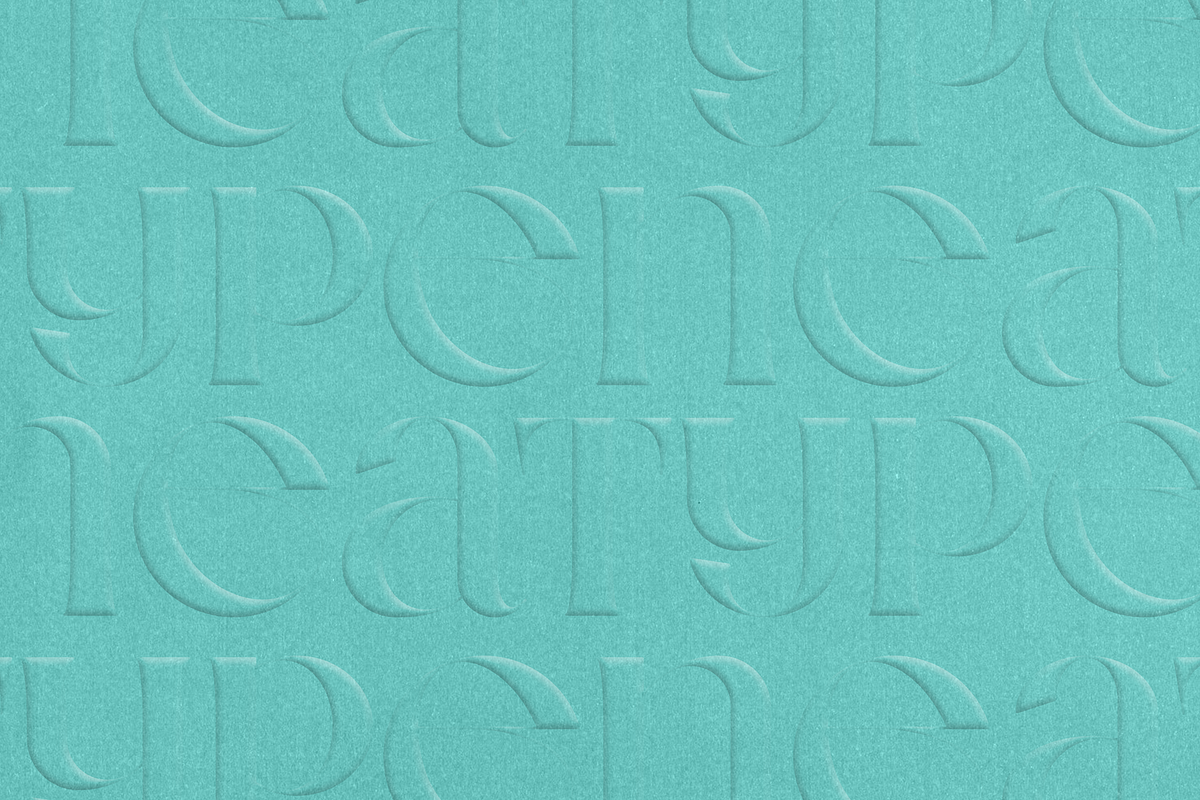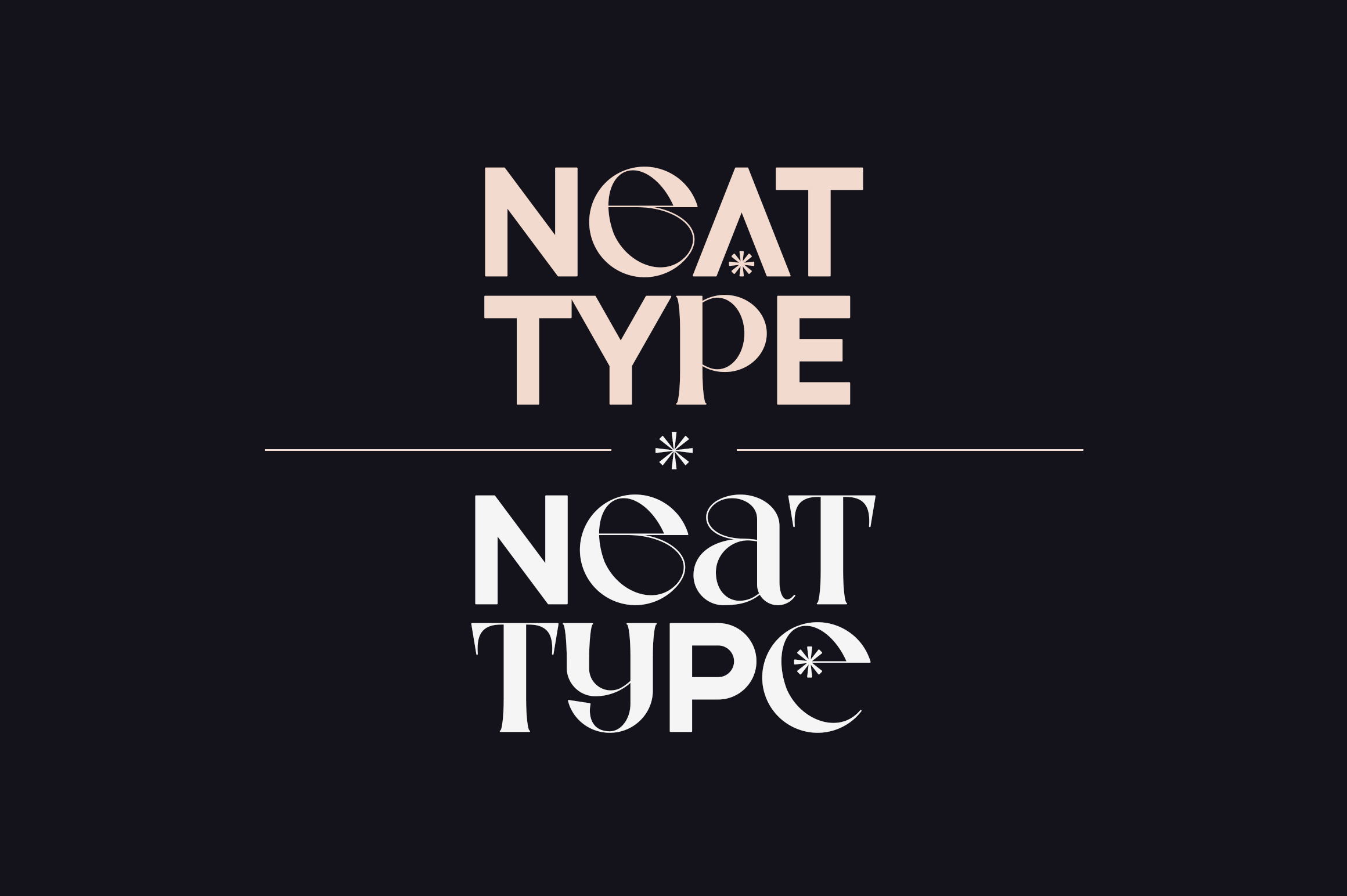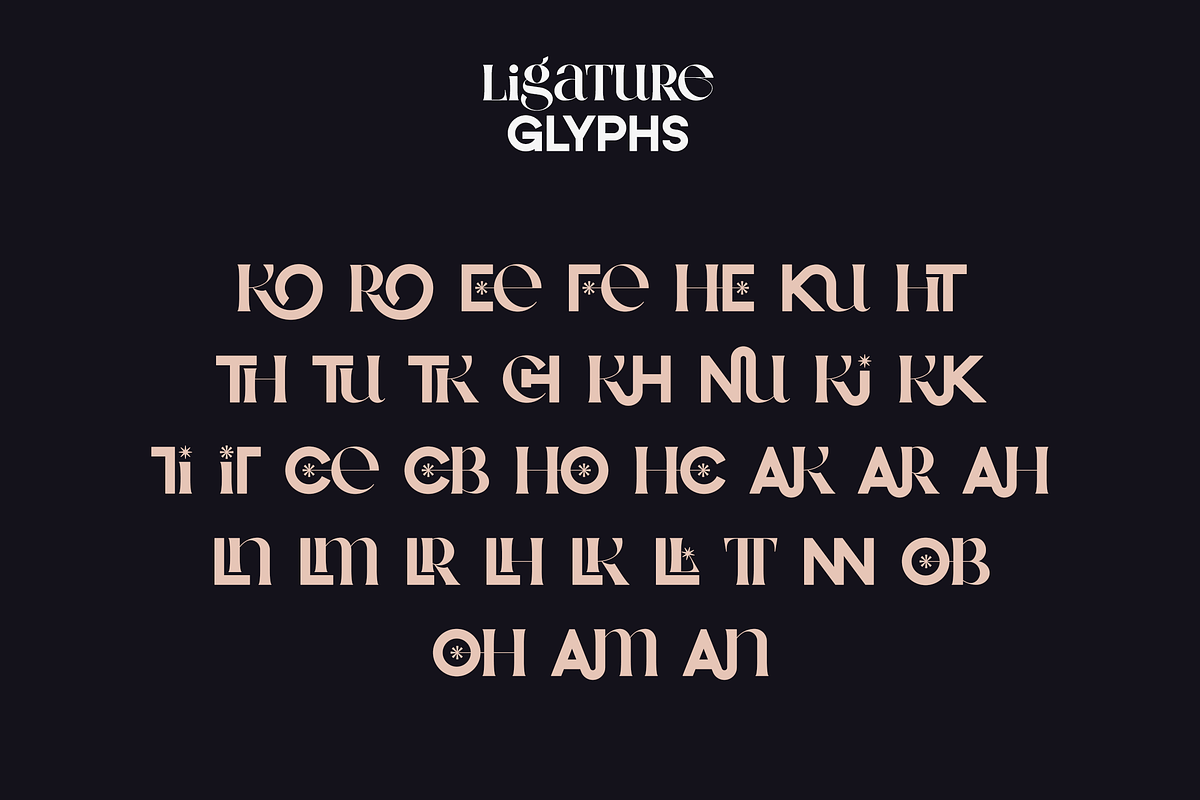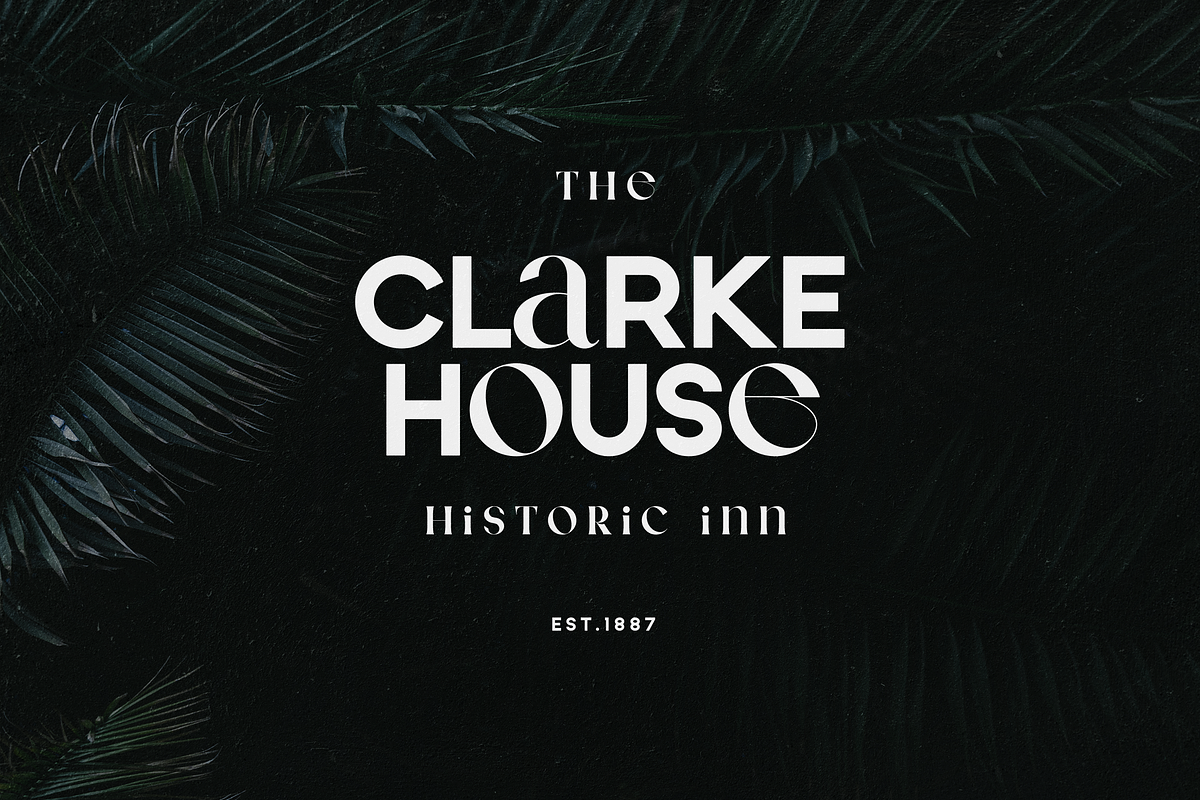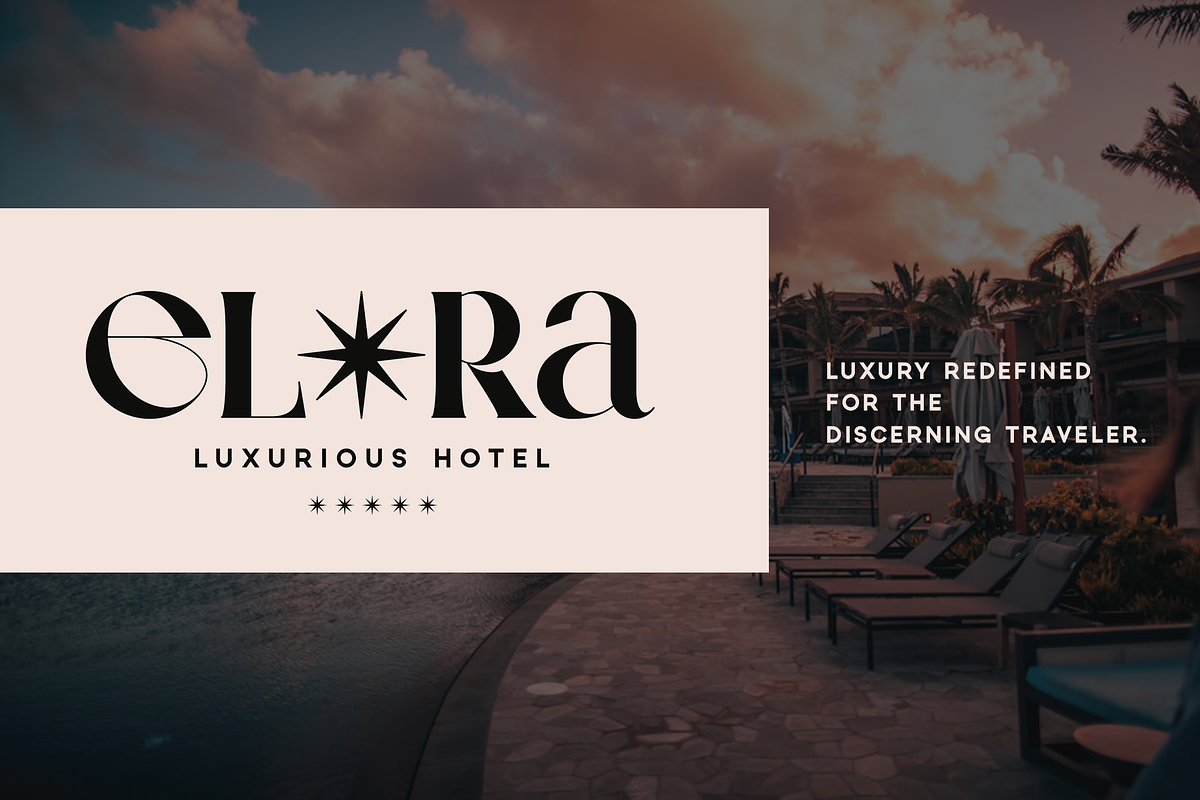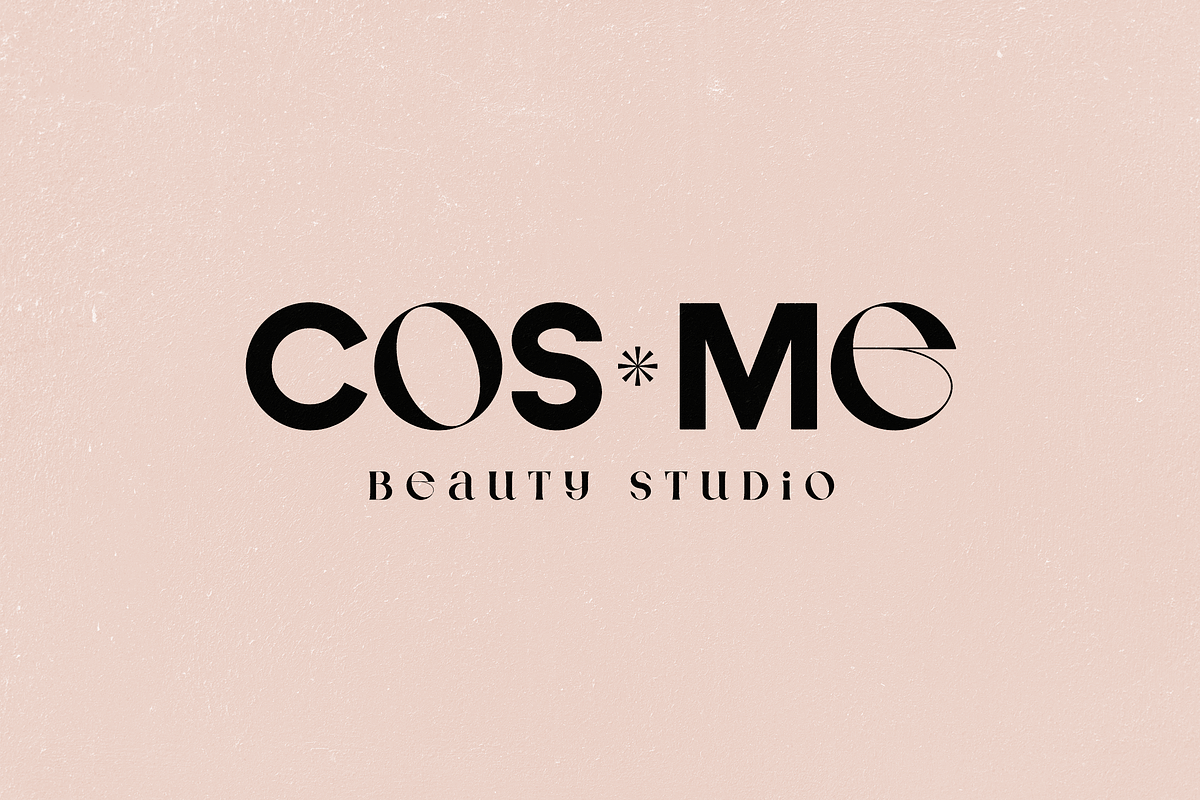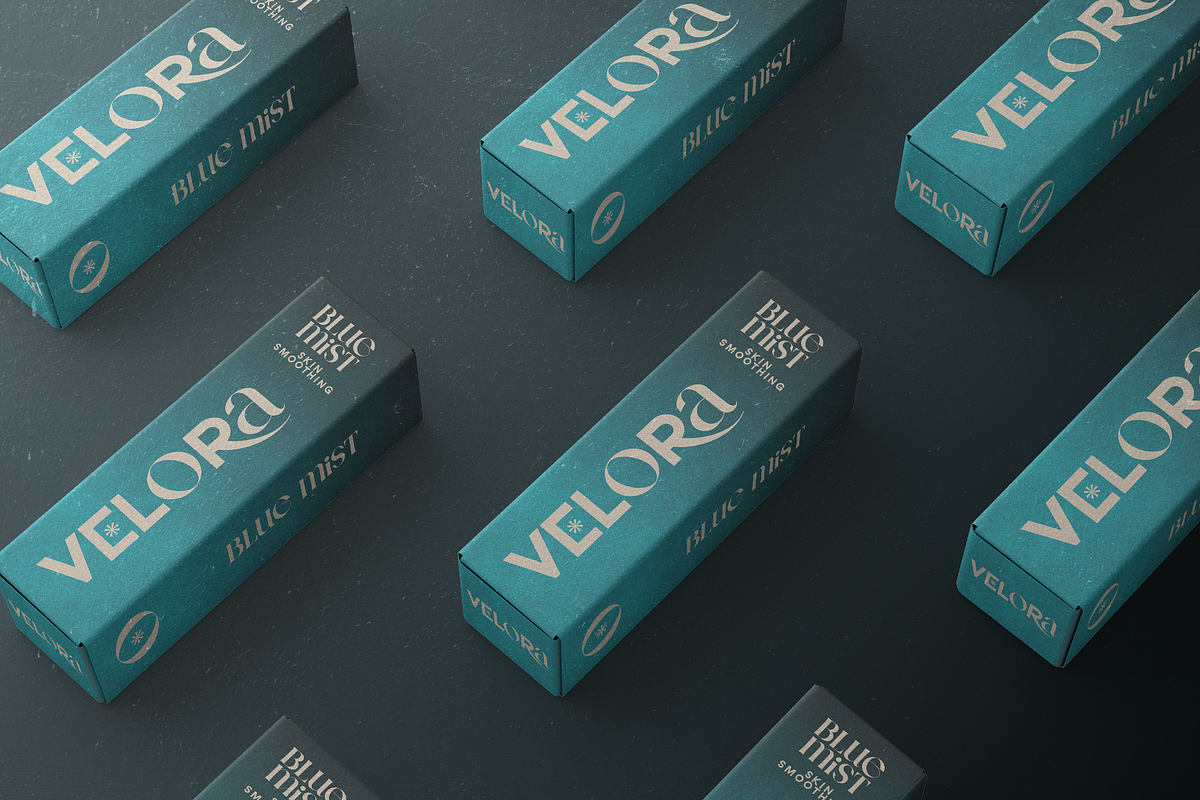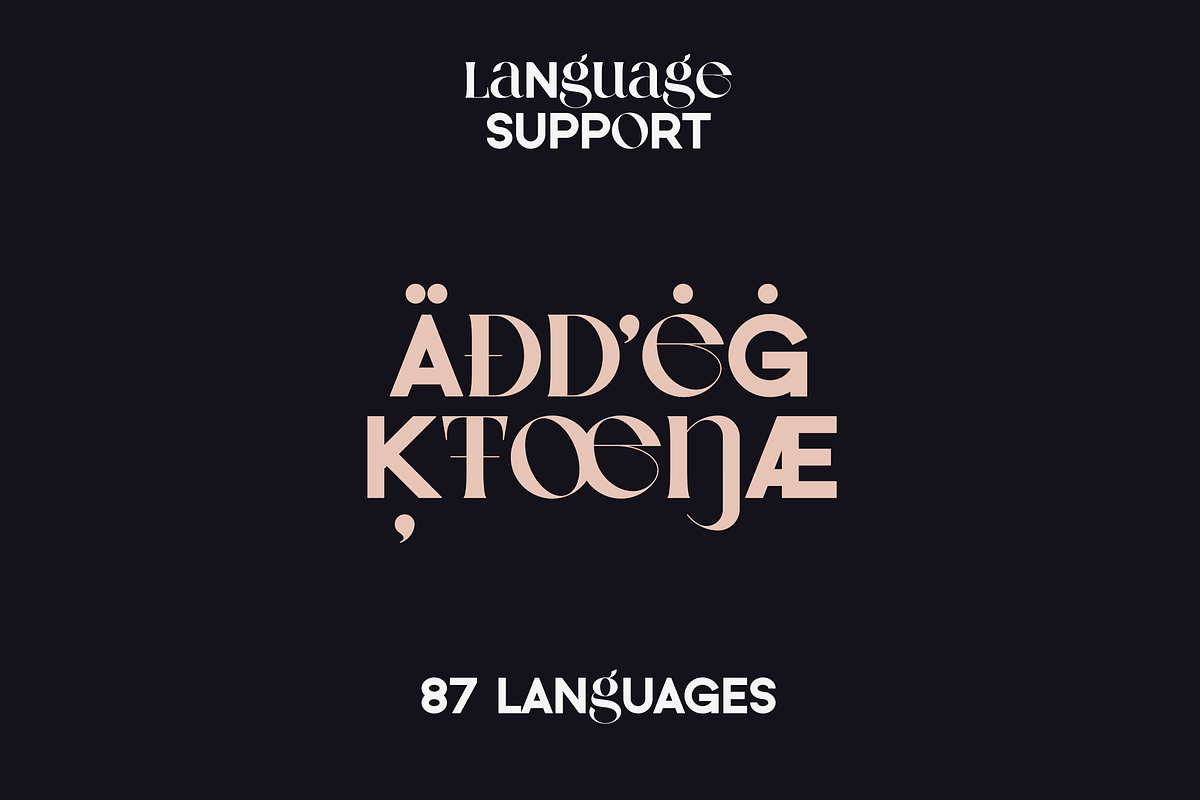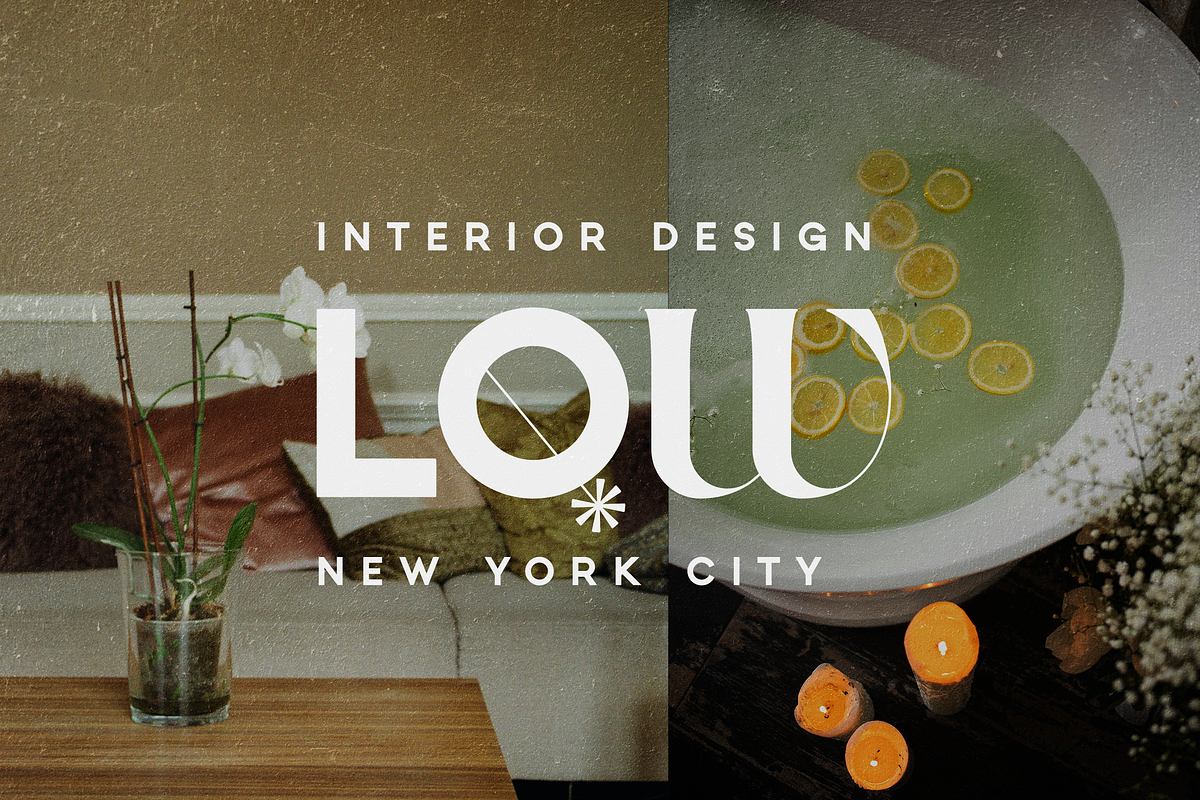
Neat Type - elegant fusion font
Introducing Neat Type, a sophisticated and innovative font that seamlessly blends the elegance of serif with the modernity of sans serif. Designed with versatility in mind, this unique typeface features uppercase characters in sleek sans serif, while lowercase letters boast a refined serif style. Perfect for designers and creatives seeking a fresh, hybrid look, Neat Type includes a rich set of alternate and ligature glyphs, enhancing your design possibilities. With support for 87 languages, Neat Type is the ideal choice for global projects, offering a stylish and contemporary solution for your typography needs.